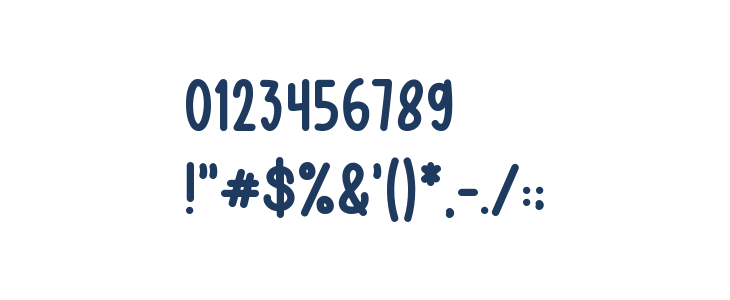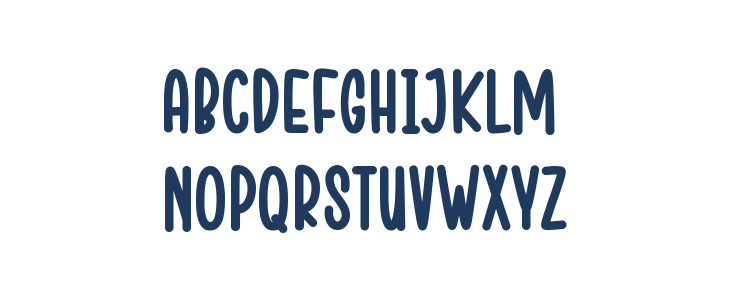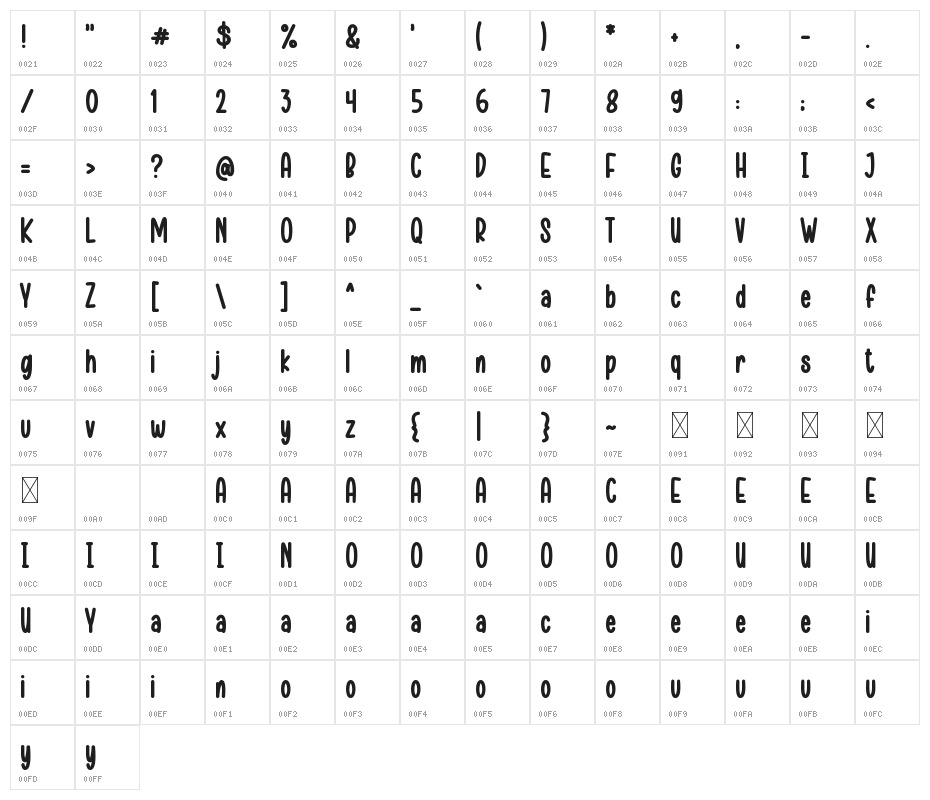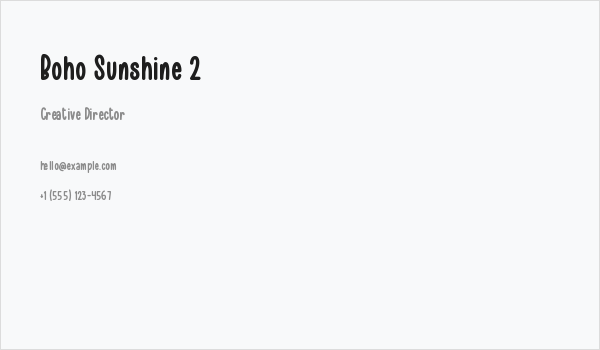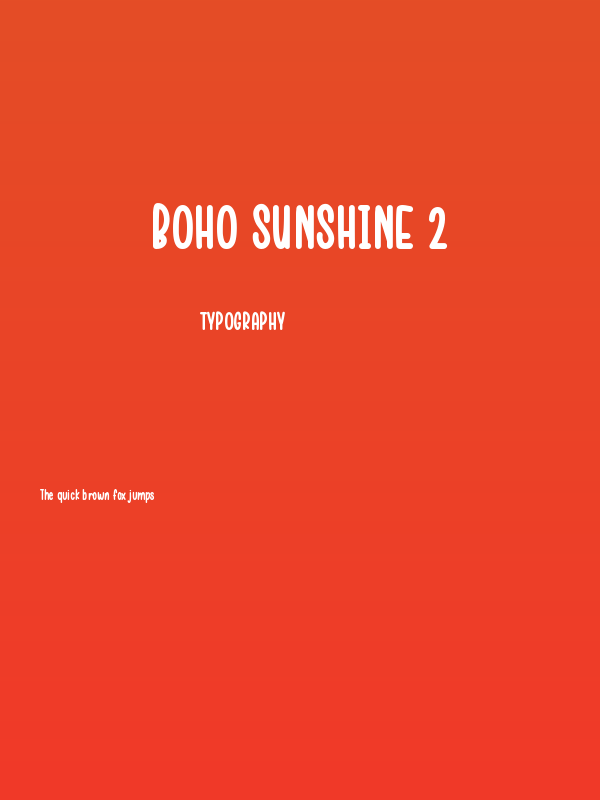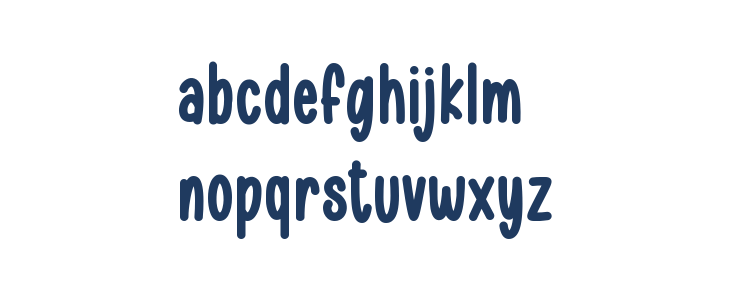
Boho Sunshine 2 Font
Boho Sunshine 2 Description
A playful, rounded sans-serif font with uniform stroke width, featuring tall, narrow letterforms and a hand-drawn, casual appearance. The characters have soft edges and a friendly, approachable vibe.
| Overall Style | Playful, Casual, Modern |
| Use Case | Headlines, Logos, Posters, Informal branding |
| Proposed Projects | ChildrenΓ’β¬β’s books, greeting cards, posters, branding for creative businesses, social media graphics. |